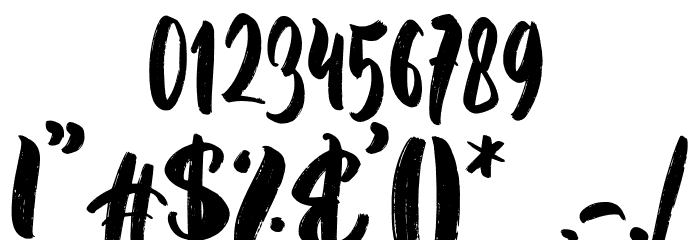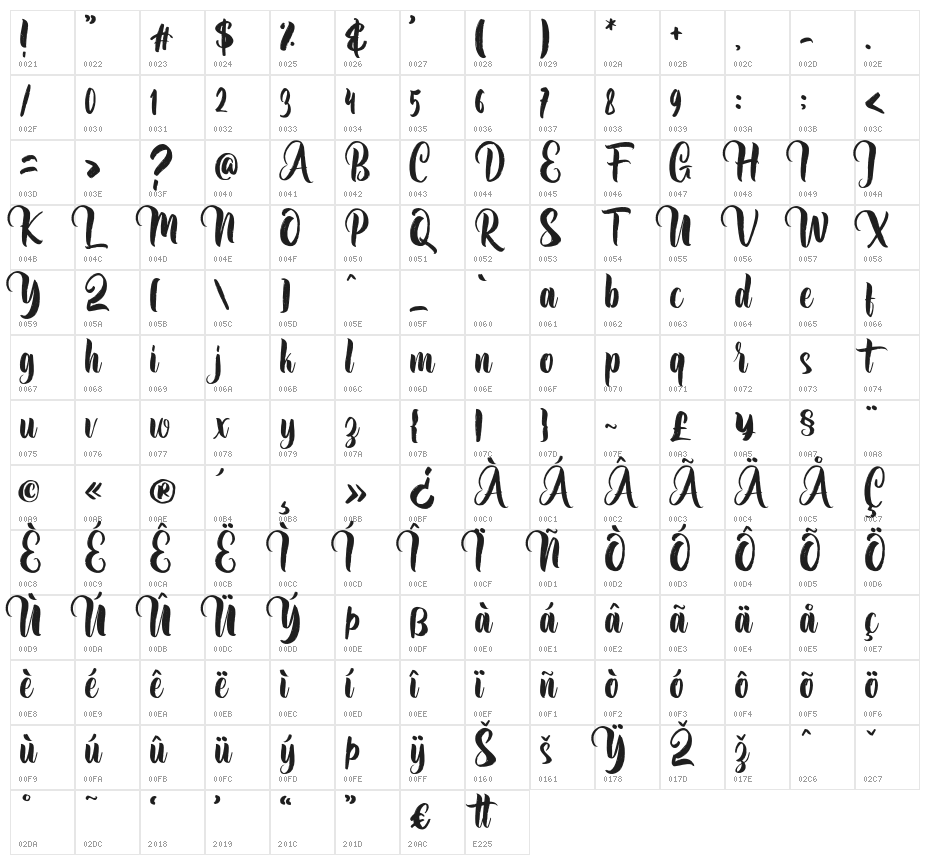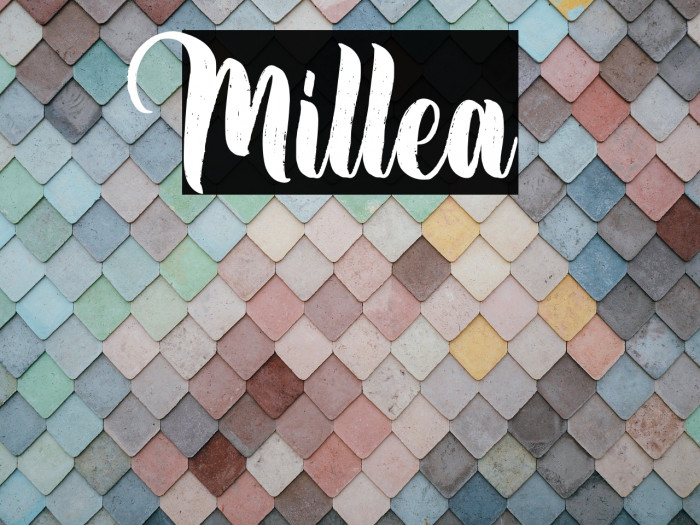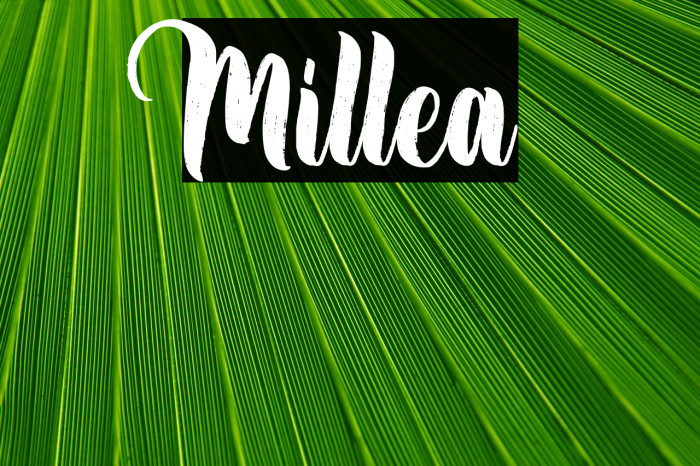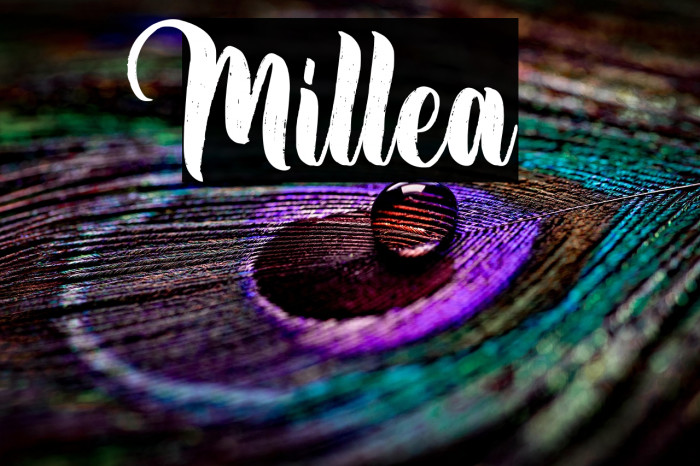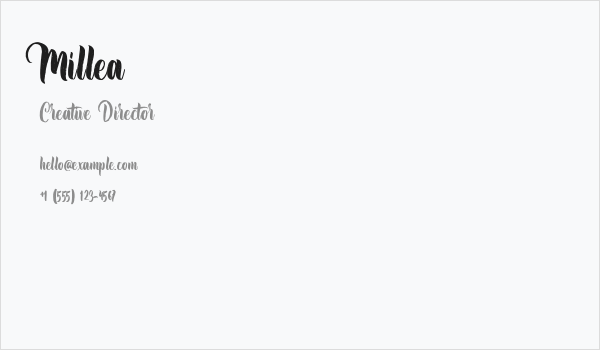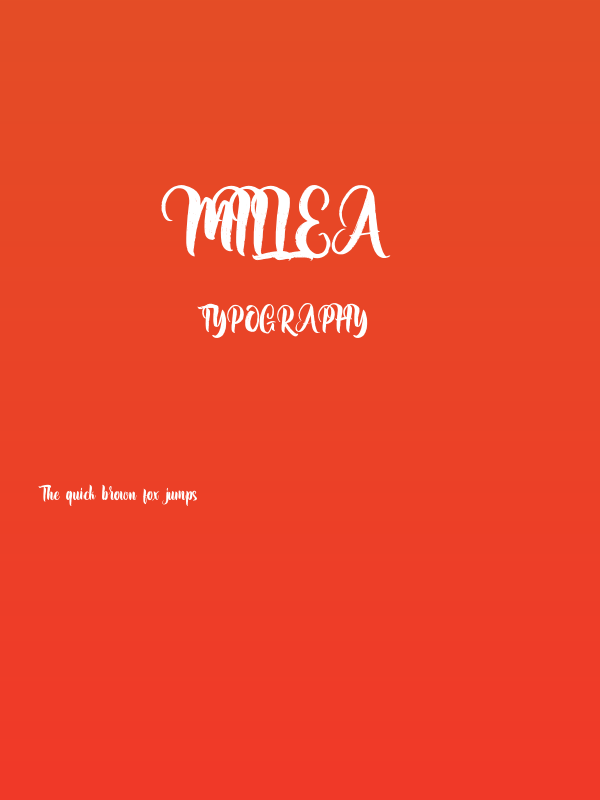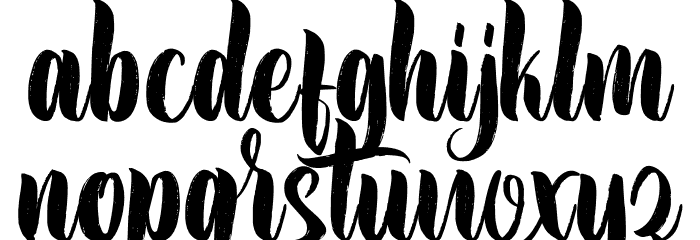
Millea Font
Millea Description
This font features a bold and expressive script style, characterized by its fluid and dynamic strokes. The letters are interconnected, creating a sense of movement and elegance. The uppercase letters are slightly larger and more ornate, while the lowercase letters maintain a consistent flow. The numbers and special characters are designed to match the overall aesthetic, with a playful yet sophisticated appearance. The texture of the strokes adds a handcrafted feel, making it suitable for projects that require a personal touch.
| Proposed Projects | Ideal for branding, invitations, greeting cards, and any design that requires a personal, artistic touch. |